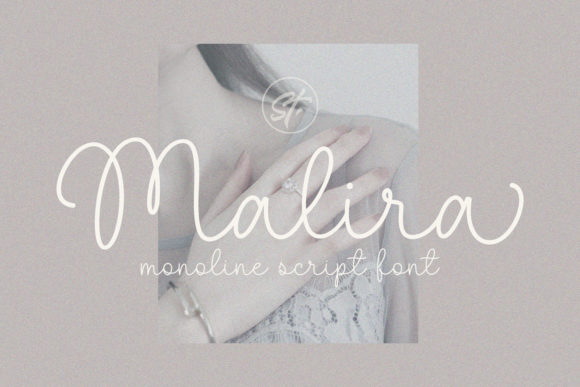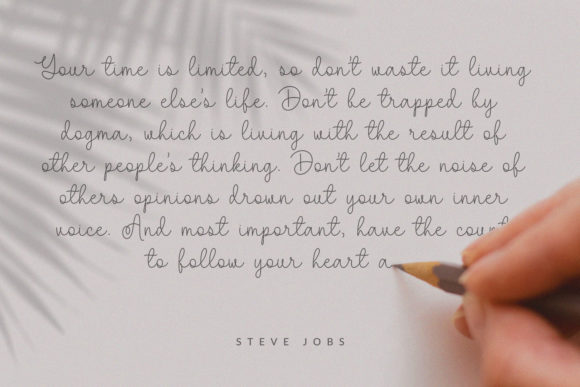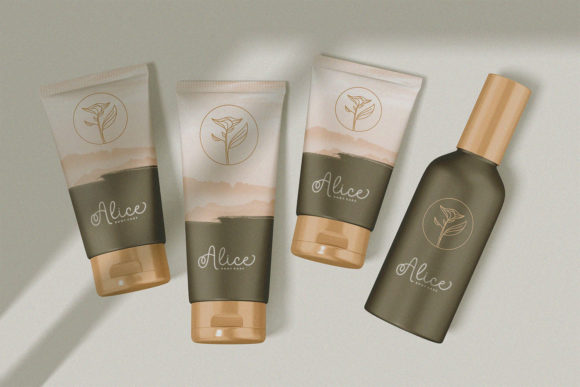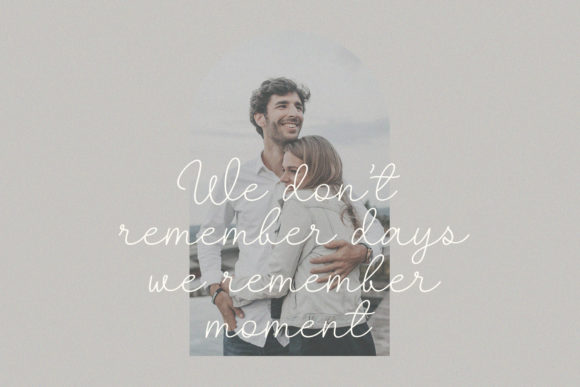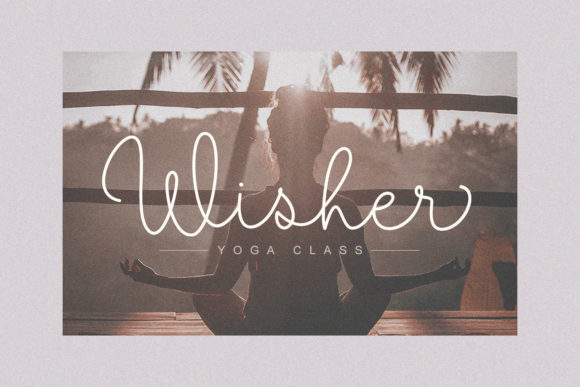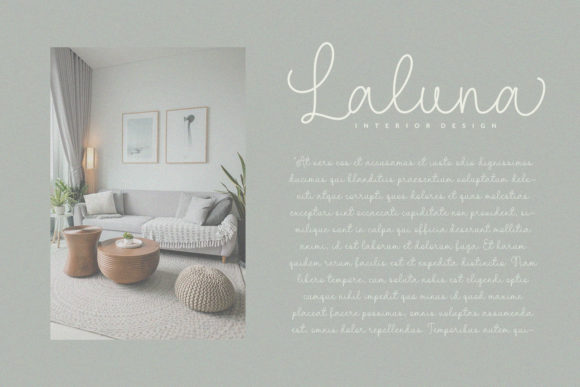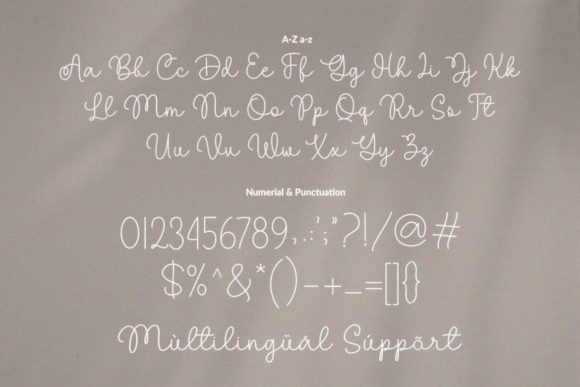
Malira Font
Malira is a beautiful, light handwritten font with a unique feel and a stunning impact. It will add a luxury spark to any design project that you wish to create!